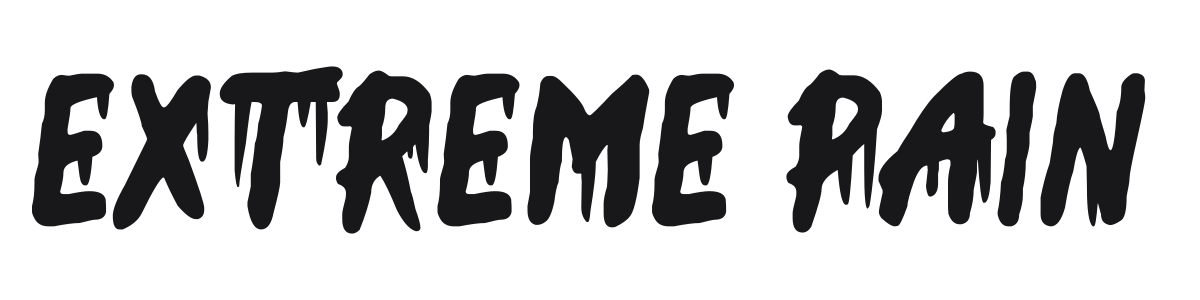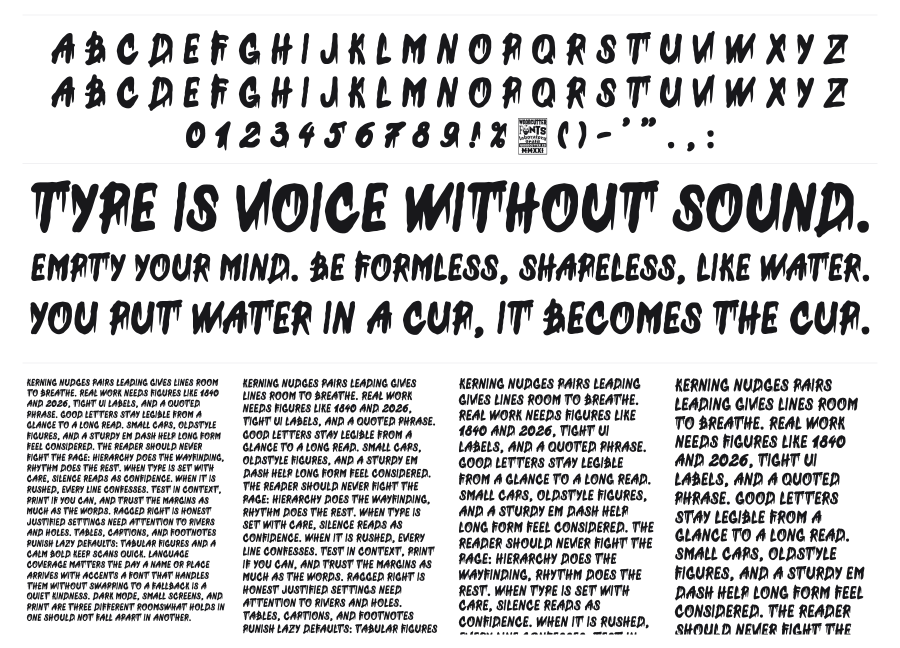
Extreme Pain
Extreme Pain is a bold italic distressed display font from Woodcutter Manero with dripping, eroded strokes that evoke horror-movie gore and punk-zine chaos. The aggressive rightward lean and jagged edge treatment make every word feel like it's been carved or splattered. A go-to for horror titles, metal band branding, and Halloween campaigns.